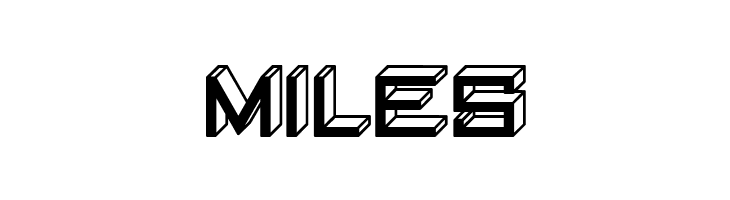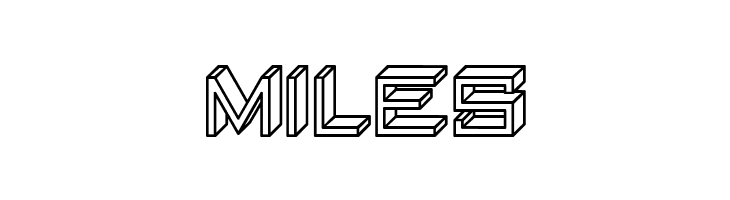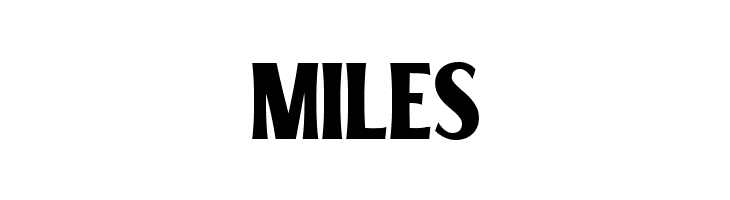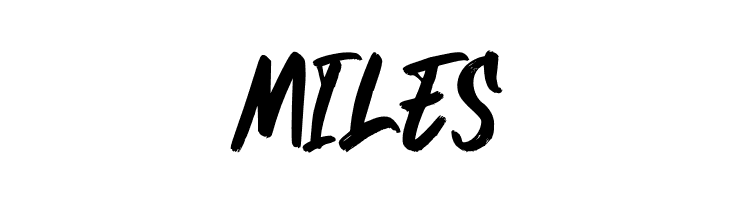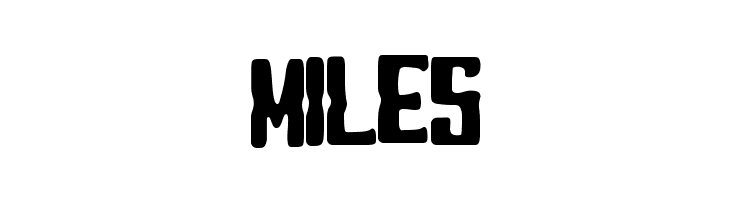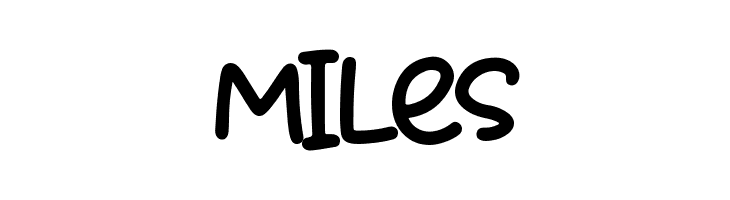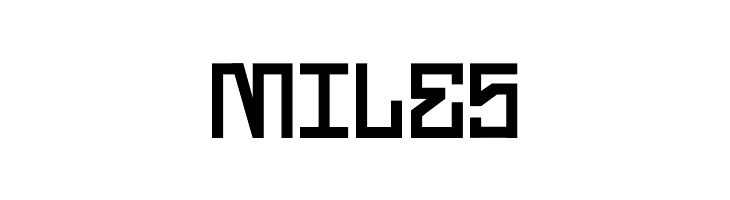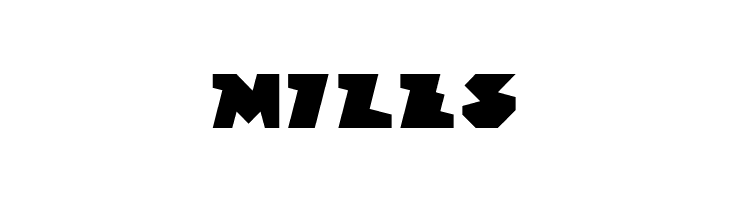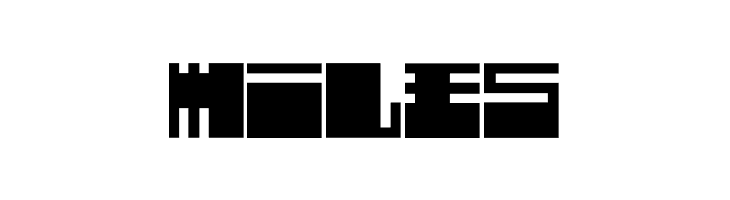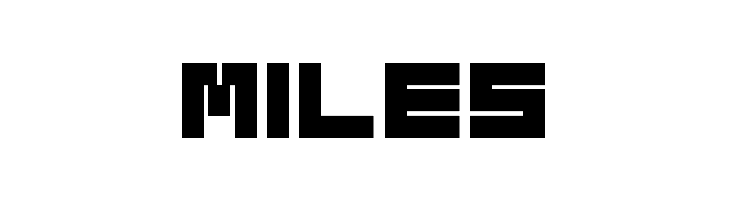
A bold, playful handwritten font with smooth, rounded characters.
A bold, expressive brush-style font with dynamic strokes and a handmade feel.
A dynamic and fluid script font with elegant, flowing letterforms.
A bold, angular Gothic-inspired font with sharp edges and dramatic serifs.
A bold blackletter font with sharp, angular lines and a gothic aesthetic.
A bold, geometric font with a modern, block-like design.
A bold, high-contrast font with a modern and dynamic style.
A bold, high-contrast font with a modern and decorative style.
An organic, blob-like font with playful, irregular edges.
A bold, geometric font with a blocky, digital appearance.
A bold, geometric font with a modern and industrial style.
A bold, cartoonish font with playful serifs and a whimsical style.
A bold, geometric font with sharp angles and block-like shapes.
A bold, geometric font with sharp angles and a strong presence.
A playful, bold handwritten font with rounded edges and a casual style.
A bold, dynamic script font with a handwritten, energetic style.
A pixelated, block-style font with a digital, retro aesthetic.
A bold, geometric font with a digital, pixelated style.
A bold, geometric font with a digital, pixel-art style.
A bold, geometric font with a modern, digital aesthetic.
A bold, brush-style script with dynamic, hand-painted strokes.
A bold, three-dimensional block font with a modern, edgy style.
A bold, three-dimensional font with sharp angles and a shadow effect.
A bold, geometric font with angular lines and a modern, industrial aesthetic.
A bold, geometric font with a strong, industrial aesthetic.
A playful, hand-drawn font with bold, irregular shapes and high contrast.
A playful, hand-drawn font with a dynamic and artistic style.
A bold, brushstroke-style font with dynamic, textured characters.
A bold, blocky font with sharp, angular edges and dynamic character shapes.
A bold, blocky font with a retro, vintage style and tight character spacing.
A bold, blocky font with a vintage poster style.
A bold, geometric font with a hollow, 3D block design.
A bold, three-dimensional block font with a modern, futuristic style.